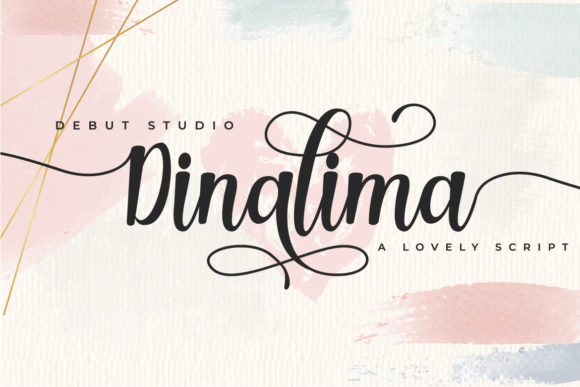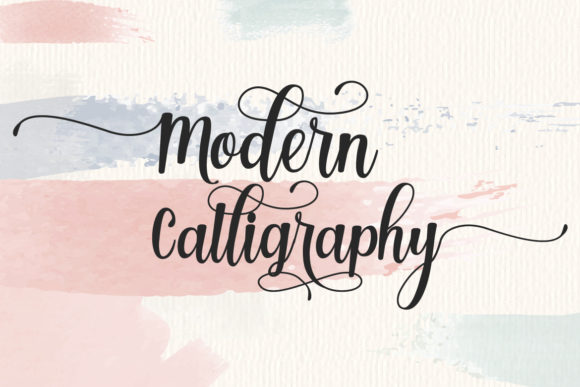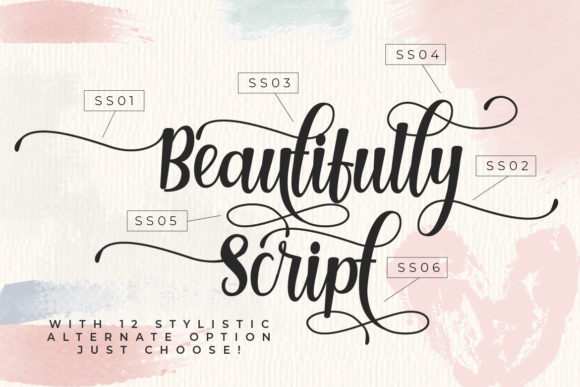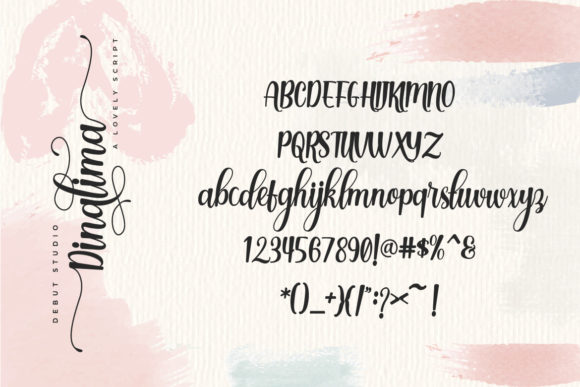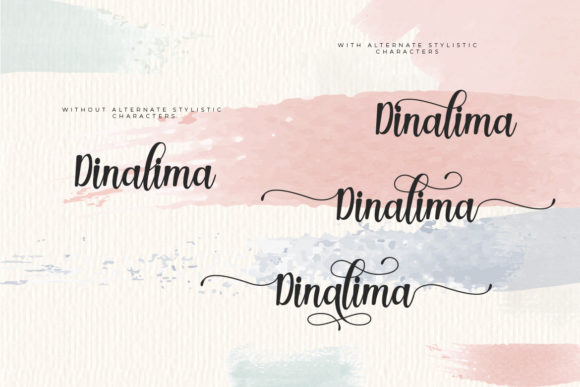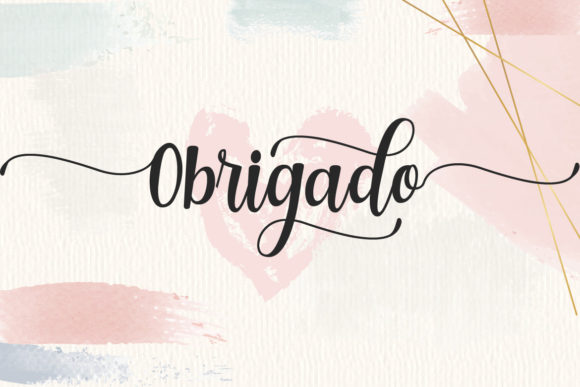
Dinalima Font
About Dinalima Font
Dinalima is a beautiful handwritten font. It has amazing swashes and alternates that will take your designs to the next level. Use it for quotes, wedding invitations, stationery and much more!